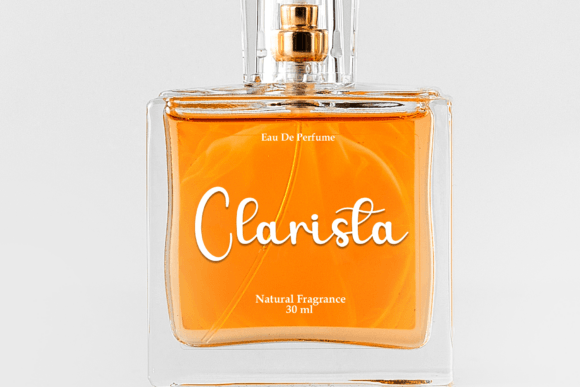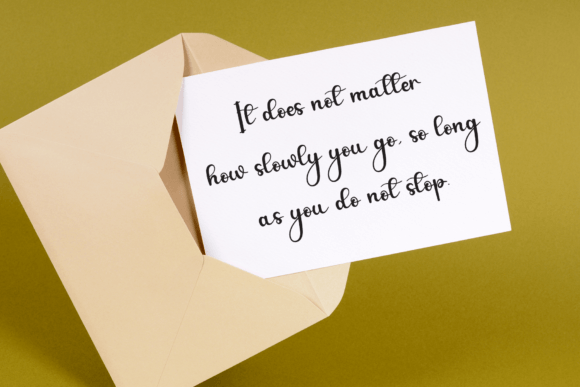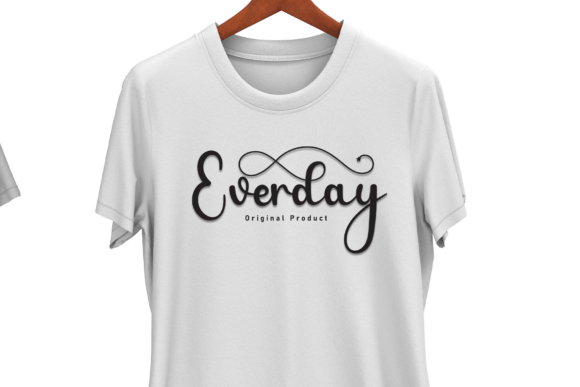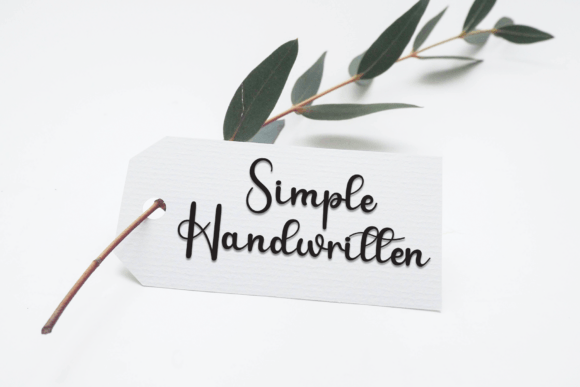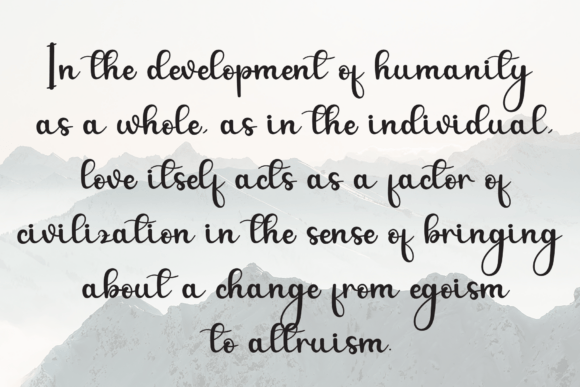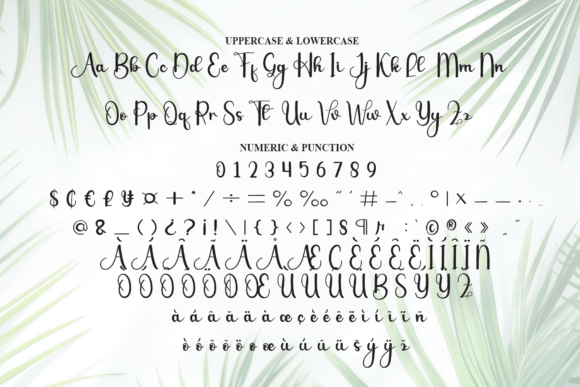
Inject Warmth and Personality into Your Designs with Sweet and Neat Font
Are you tired of using the same old fonts in your designs? Do you want to add a touch of warmth and personality to your projects? Look no further than Sweet and Neat, a beautiful handwritten display font that’s bursting with charisma and whimsical sophistication. In this article, we’ll explore the unique features of Sweet and Neat and how it can elevate the atmosphere of your designs.
Handwritten fonts have a way of adding a personal touch to any design. They’re perfect for creating a sense of warmth and connection with your audience. Sweet and Neat is no exception. This stunning font is designed to bring a touch of elegance and sophistication to your projects, making it perfect for a variety of design applications.
Unique Features of Sweet and Neat
Sweet and Neat is more than just a pretty font. It’s a versatile tool that can be used in a variety of design projects. Here are some of its unique features:
- Whimsical Sophistication: Sweet and Neat has a playful, whimsical feel that’s perfect for adding a touch of personality to your designs.
- Handwritten Charm: This font has a beautiful, handwritten quality that’s perfect for creating a sense of warmth and connection with your audience.
- Versatility: Sweet and Neat can be used in a variety of design projects, from wedding invitations and cards to posters and social media graphics.
Sweet and Neat is a perfect choice for crafting alluring wedding invitations, heartfelt cards, or any design that craves that delightful, playfully vibrant touch. The font’s whimsical sophistication and handwritten charm make it ideal for:
- Wedding Invitations: Add a touch of elegance and sophistication to your wedding invitations with Sweet and Neat.
- Birthday Cards: Create personalized birthday cards that will make the recipient feel special.
- Thank You Cards: Express your gratitude with beautiful, handmade-style thank you cards.
Breathe Life into Your Projects
Sweet and Neat is more than just a font – it’s a way to breathe life into your projects. With its soothing allure and whimsical sophistication, this font can help you:
- Stand Out: Add a unique touch to your designs and stand out from the crowd.
- Connect with Your Audience: Create a sense of warmth and connection with your audience.
- Showcase Your Creativity: Showcase your creativity and personality in every stroke.
In conclusion, Sweet and Neat is a beautiful handwritten display font that’s perfect for designers and crafters looking to add a touch of warmth and personality to their projects. With its whimsical sophistication, handwritten charm, and versatility, this font is ideal for a variety of design applications. Whether you’re creating wedding invitations, cards, or social media graphics, Sweet and Neat is sure to elevate the atmosphere of your designs and help you connect with your audience.